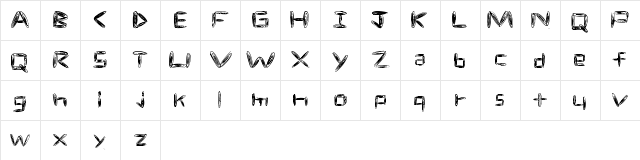
spacetime Regular Free Font
spacetime Regular
Foundry: Xerographer Foundry
Designer: Max Infeld
Design Context for spacetime
spacetime is a composed and adaptable typeface that performs quietly and consistently across a wide range of design contexts.